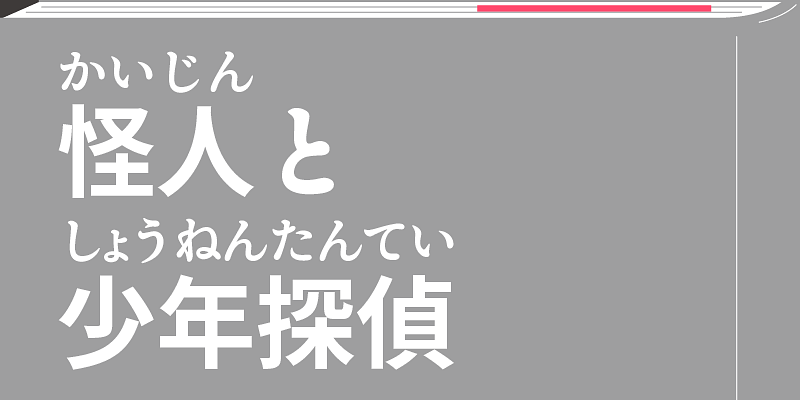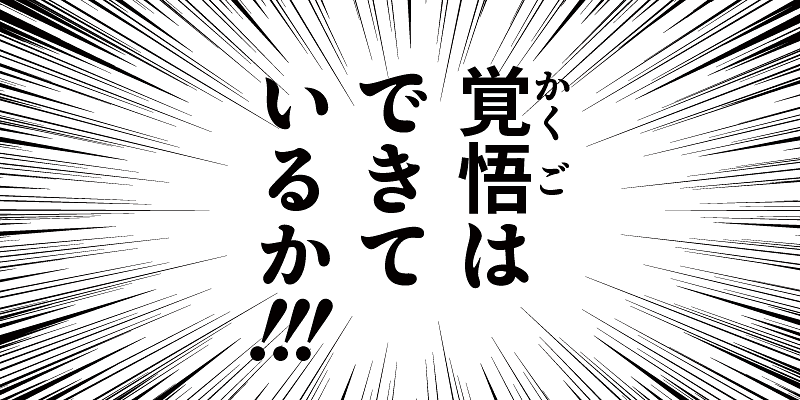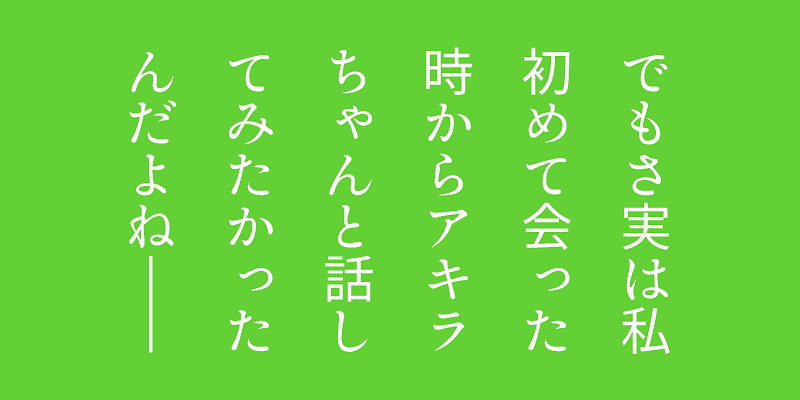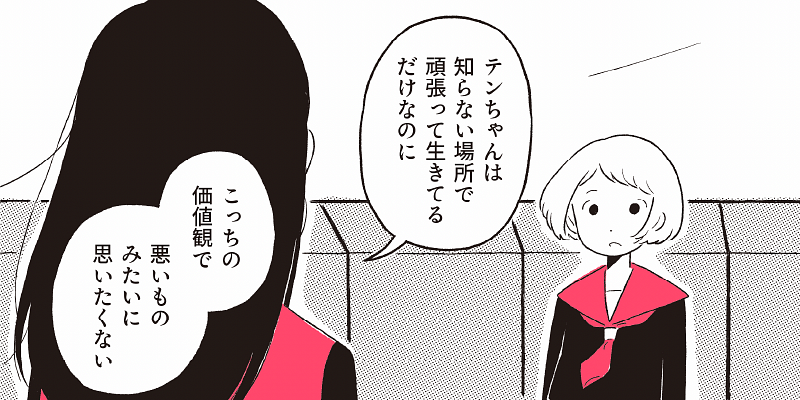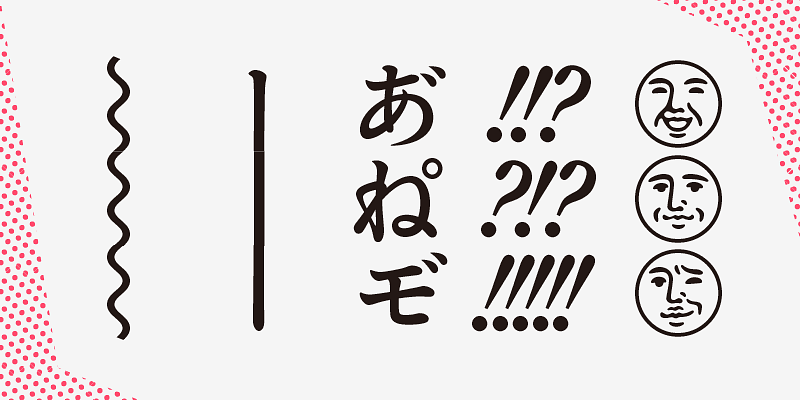
“Antique” style fonts for manga added to the Ten Mincho typeface family.
Ten Mincho Antique is designed for use in manga production. It has kana characters designed in the authentic Japanese “antique” type style with low contrast between the horizontal and vertical strokes. It has six weights, and each font supports special characters and symbols commonly used for lines in manga. Using Ten Mincho Antique in your manga will provide varied, rich typographic expression. Ten Mincho Antique combines kana characters with the classic, relaxed shape of Ten Mincho Text and the simple, elegant kanji characters of Source Han Sans. It also includes Latin characters from Source Sans designed by Paul D. Hunt.